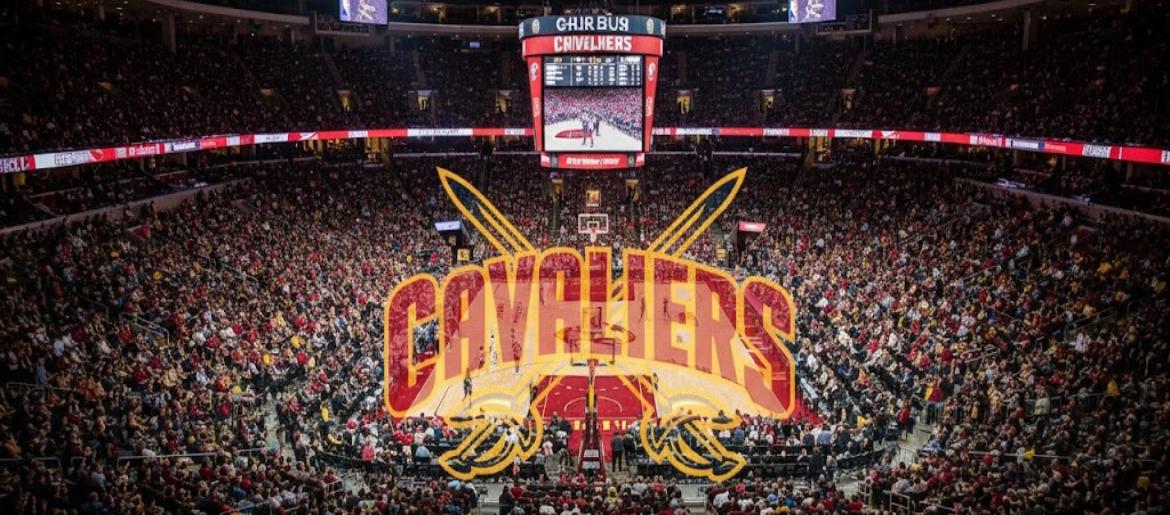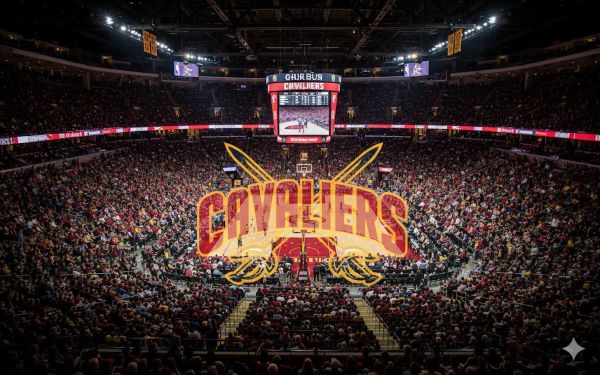
Cleveland Cavaliers Font
What Font Does Cleveland Cavaliers Use?
The Cleveland Cavaliers Font is a bold sports display typeface commonly referred to as the Cleveland Cavaliers Font. It features strong block letterforms, sharp angles, and athletic proportions, giving the typography a powerful, competitive, and professional appearance.
About Cleveland Cavaliers
The Cleveland Cavaliers are a professional NBA team based in Cleveland, Ohio. Founded in 1970, the franchise gained worldwide recognition after winning its first NBA Championship in 2016, led by LeBron James. Known for resilience and strong team identity, the Cavaliers have built a passionate fan base. Their branding emphasizes strength, motion, and legacy. Typography plays an important role in reinforcing confidence and unity across logos, arena graphics, merchandise, and promotional materials.